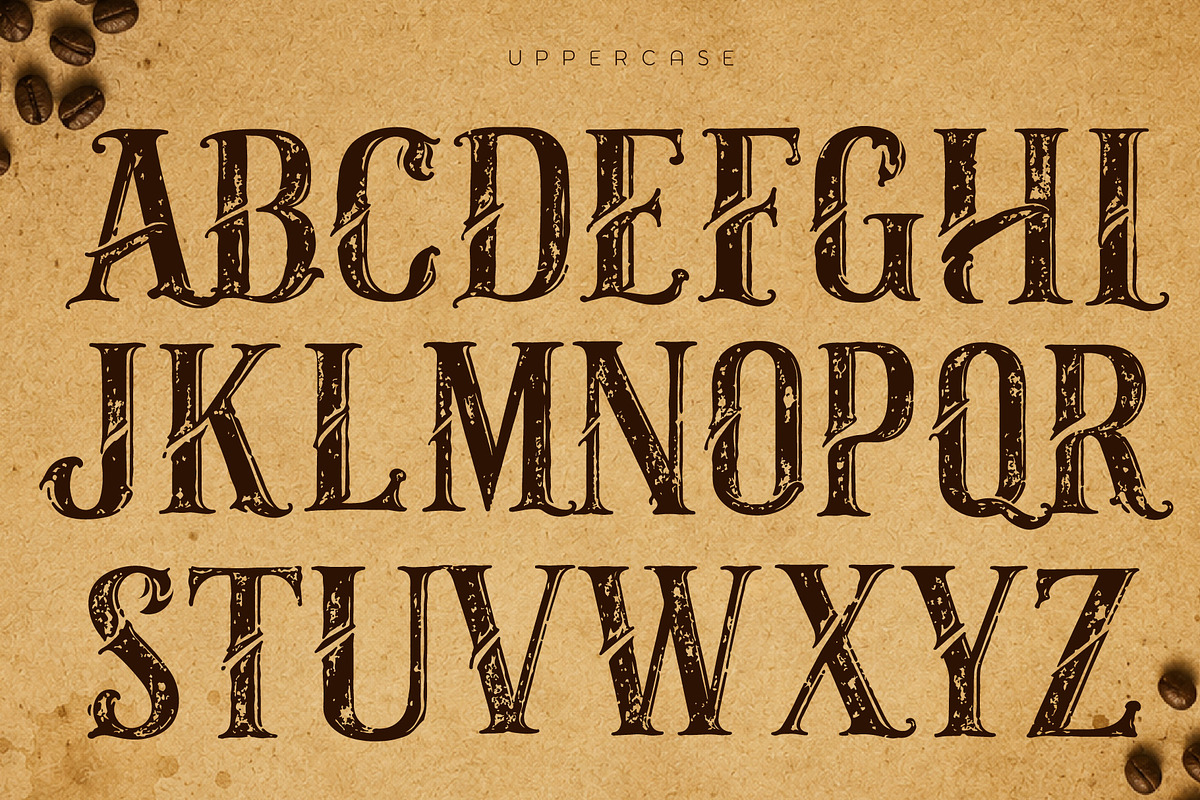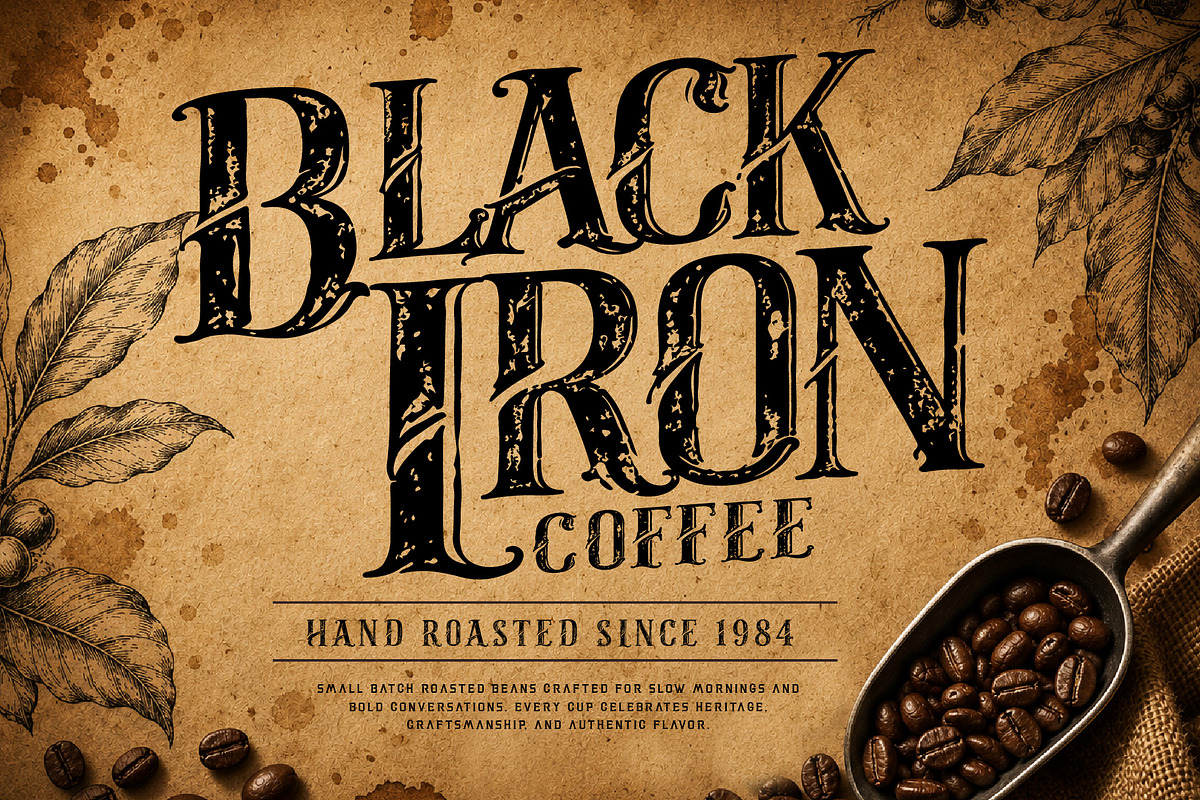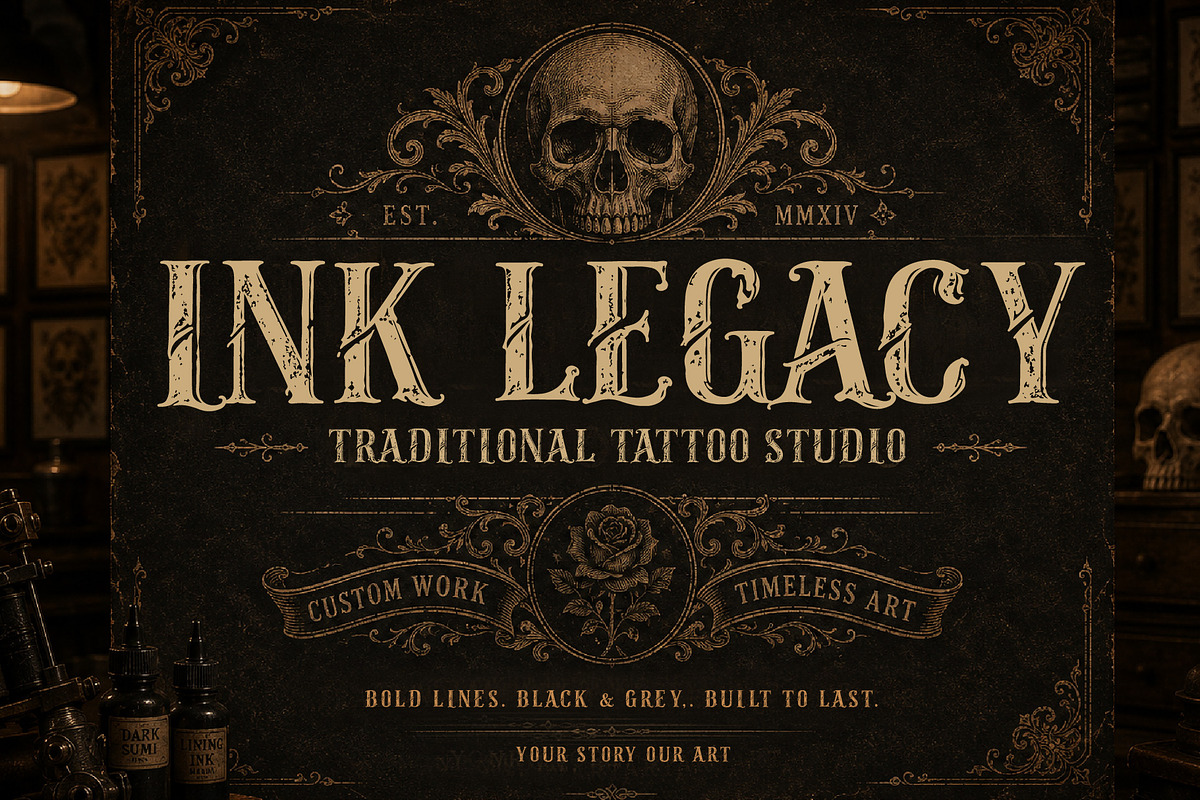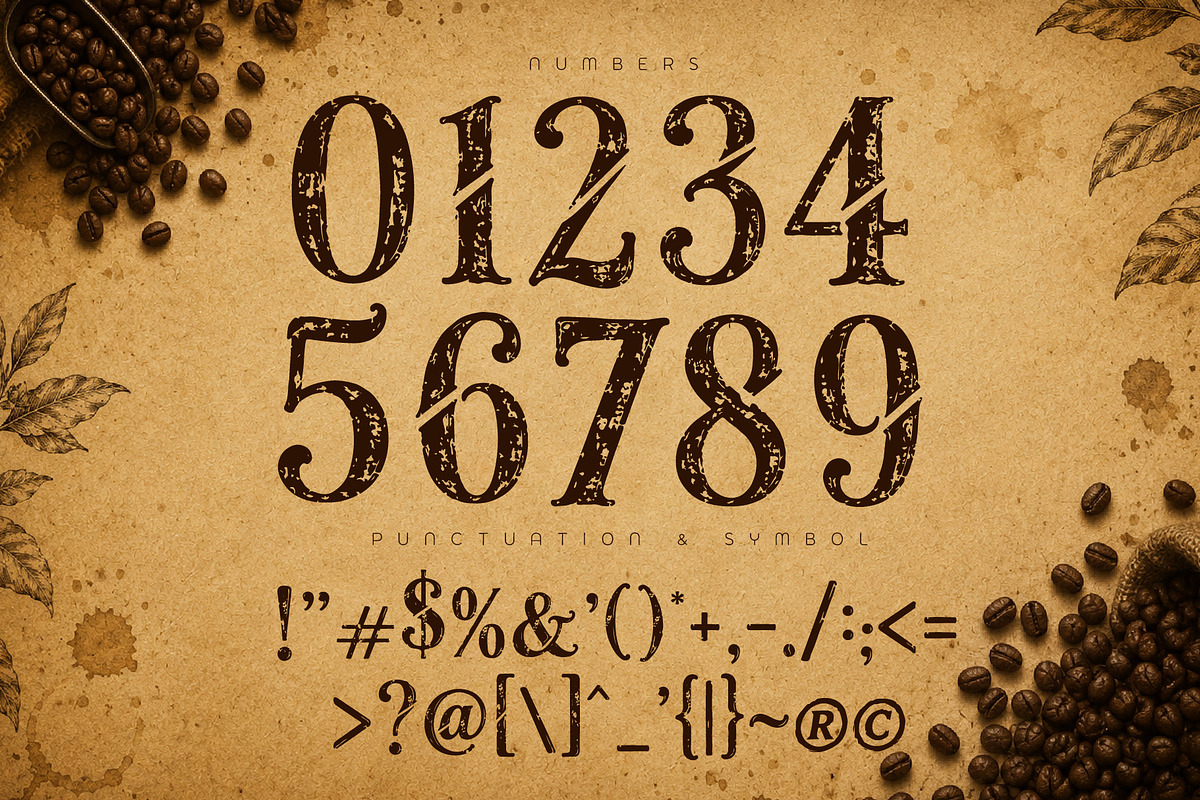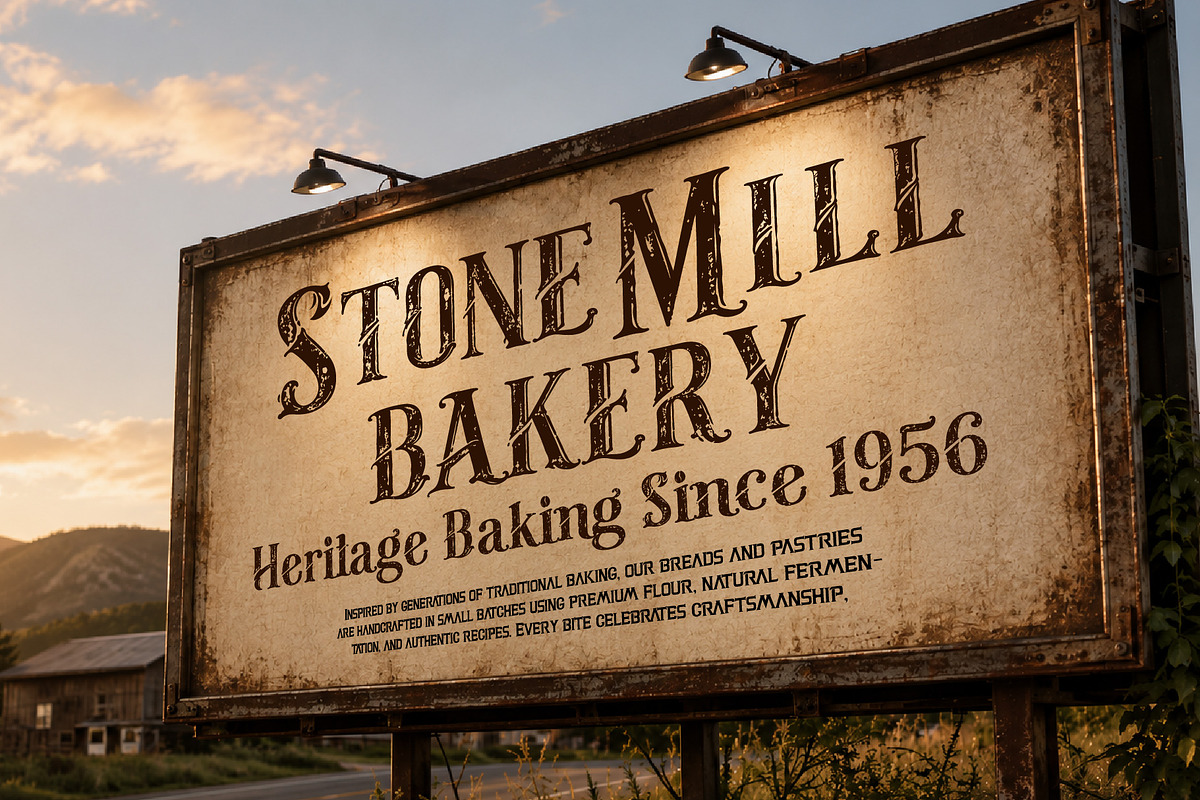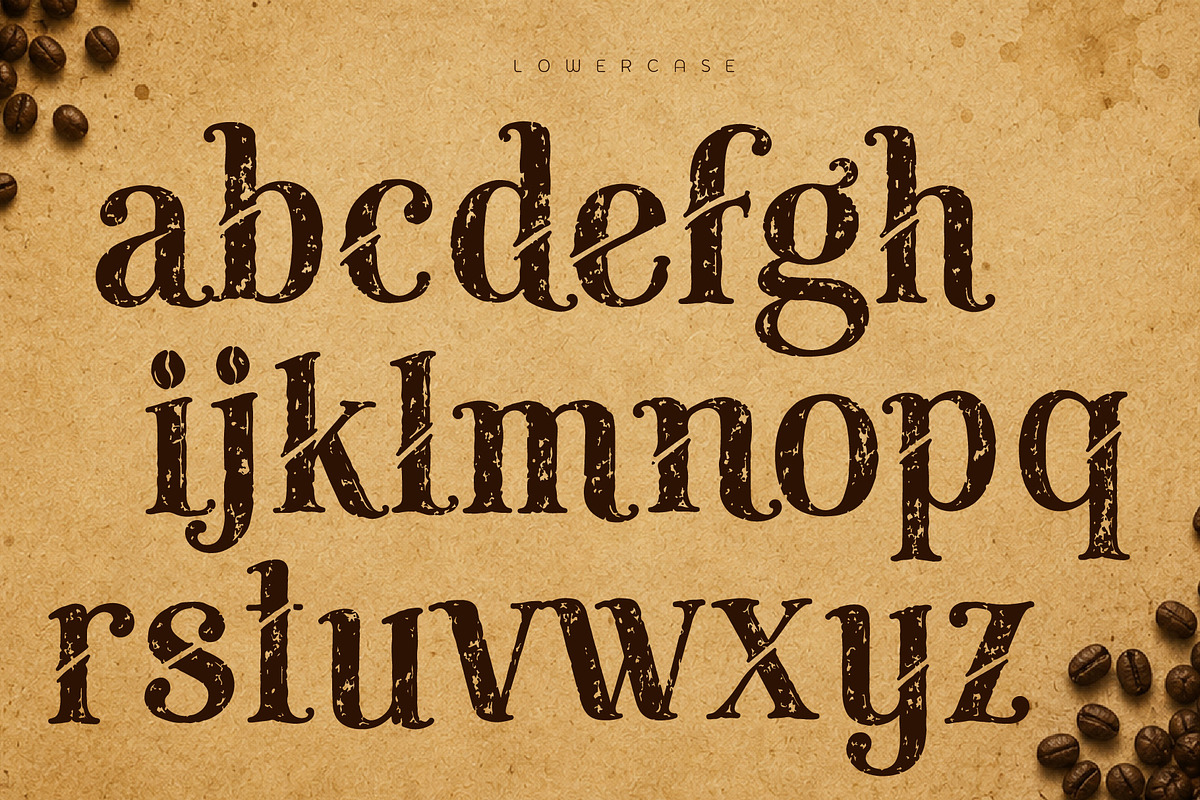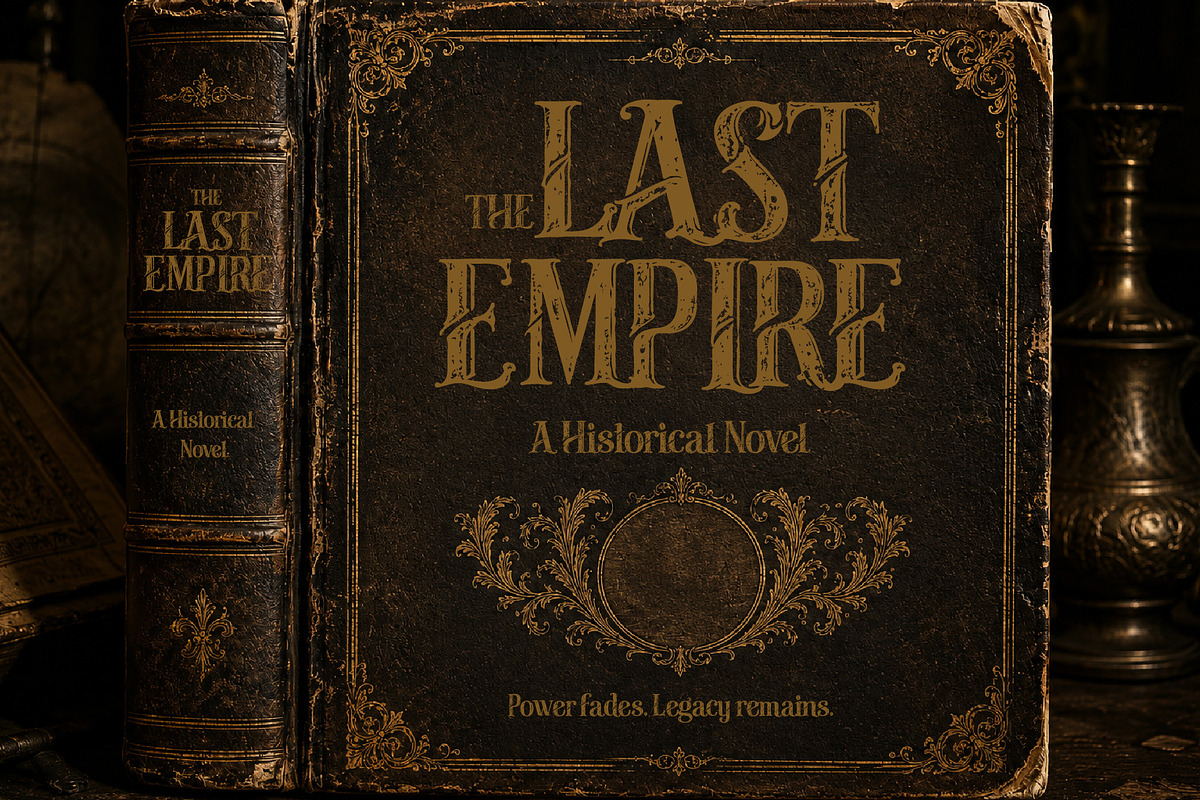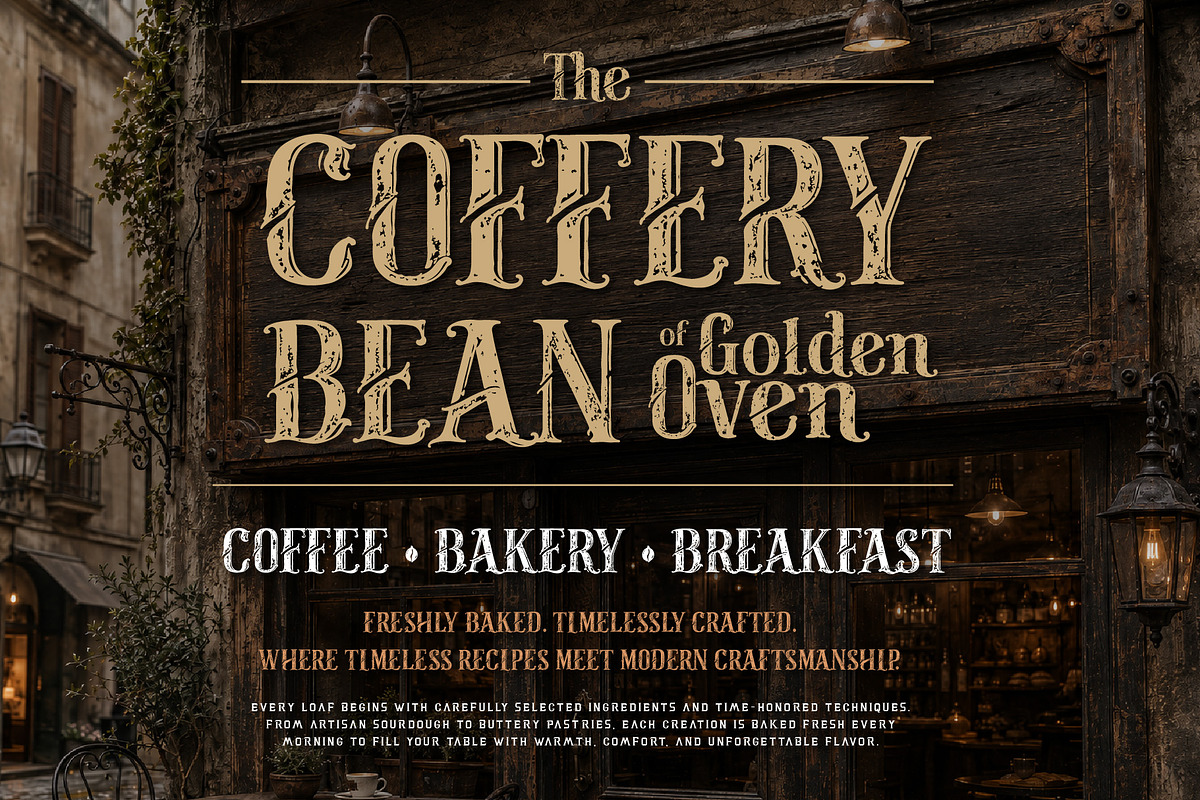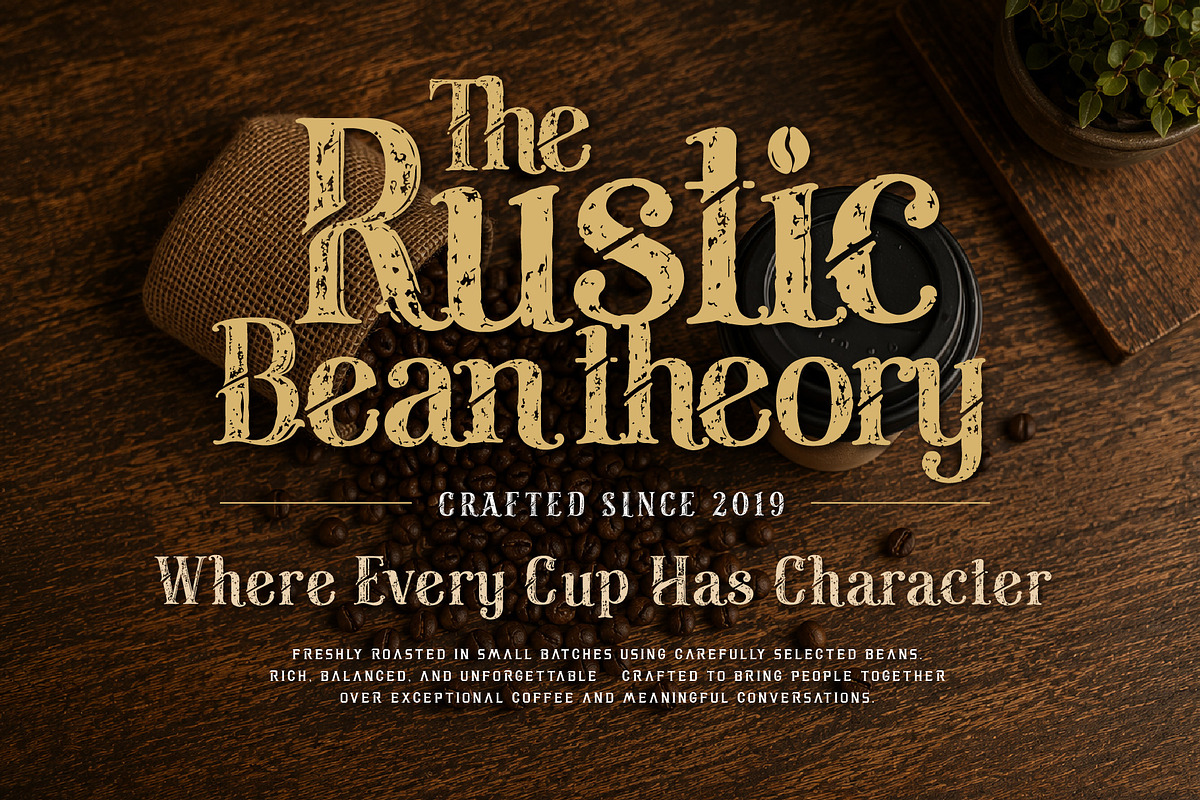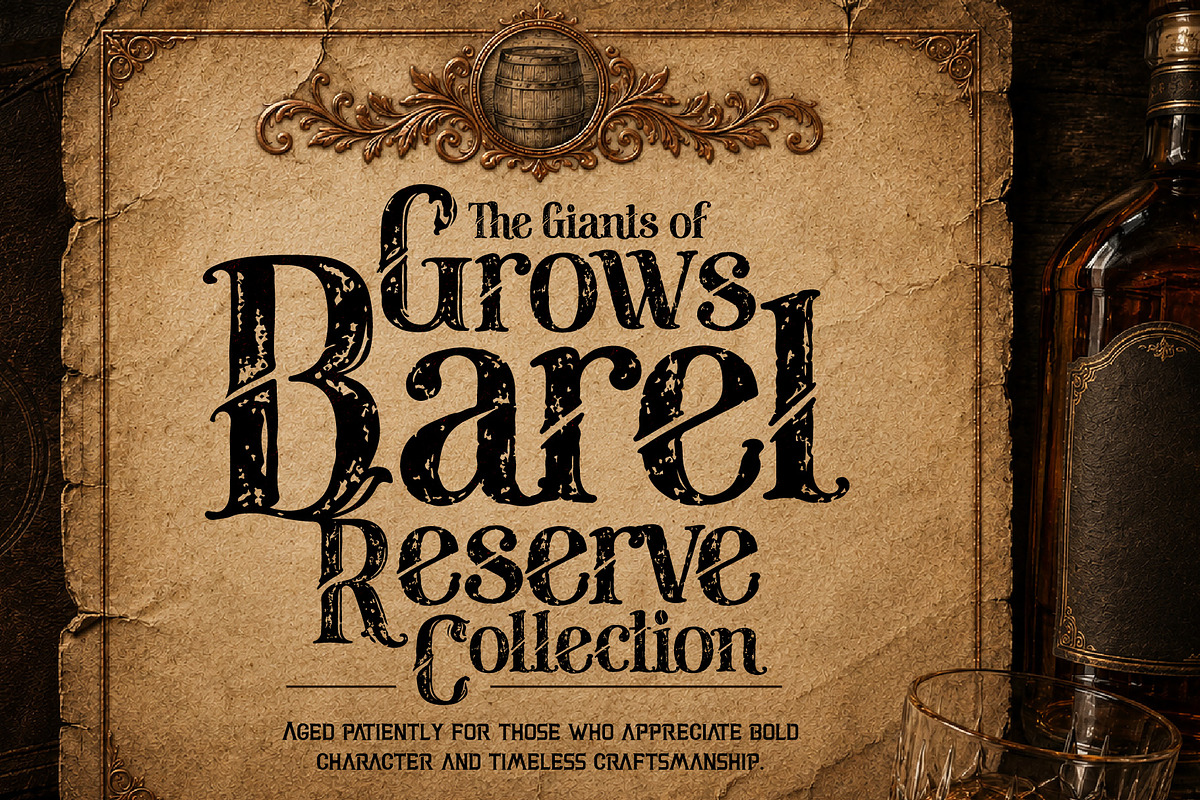
Mokaria Roastery - Vintage Rustic
Mokaria Roastery is a handcrafted vintage serif display font inspired by old-world coffee roasters, heritage breweries, rustic bakeries, classic wineries, and timeless European storefront signage. Featuring elegant oldstyle letterforms, weathered textures, and authentic grunge details, this typeface captures the warmth of handcrafted traditions and vintage craftsmanship.
Designed for bold branding and nostalgic storytelling, Mokaria Roastery brings character to logos, packaging, café menus, beer labels, coffee bags, bakery branding, wine labels, restaurant identities, posters, apparel, book covers, and editorial layouts.
Whether you're creating a premium coffee brand, a rustic brew house, a traditional bakery, or a vintage-inspired poster, Mokaria Roastery delivers timeless personality with a handcrafted finish.
Coffee Roasters & Coffee Shops
Breweries & Craft Beer Labels
Bakeries & Artisan Food Brands
Wine Labels & Vineyard Branding
Restaurants & Eateries
Vintage Posters & Signage
Bring heritage, craftsmanship, and authentic vintage charm into every project with Mokaria Roastery.